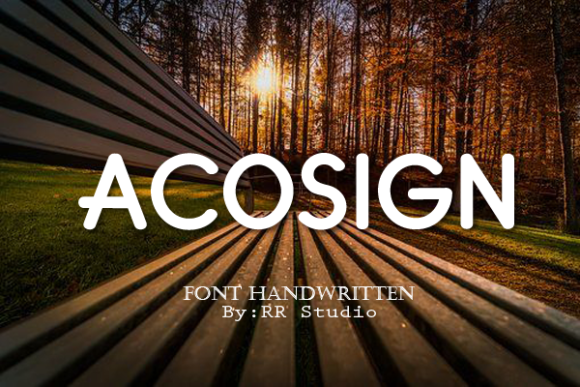
Dive into the world of Acosign Font, a captivating sans serif typeface that exudes elegance and sophistication. This exquisite font family is renowned for its unmatched ability to elevate any logo design, making it the perfect choice for businesses and entrepreneurs seeking to make a lasting impression.
Crafted with meticulous precision by the renowned RR Studio, Acosign Font boasts a versatile character set that lends itself flawlessly to a myriad of applications. From alluring greeting cards that convey heartfelt messages to captivating headlines that demand attention, this font empowers you to communicate with style and impact.
Indulge in the sleek lines and graceful curves of Acosign Font, a typeface that seamlessly combines readability with an air of sophistication. Its carefully calibrated weight distribution ensures optimal legibility, even at smaller font sizes, making it ideal for both print and digital designs.
Unleash your creativity with Acosign Font, a font family that empowers you to craft designs that resonate with your audience. Whether you're designing logos, brochures, or website banners, this font will elevate your message with its timeless appeal and modern aesthetic. Experience the allure of Acosign Font today and witness the transformative power it brings to your design endeavors.